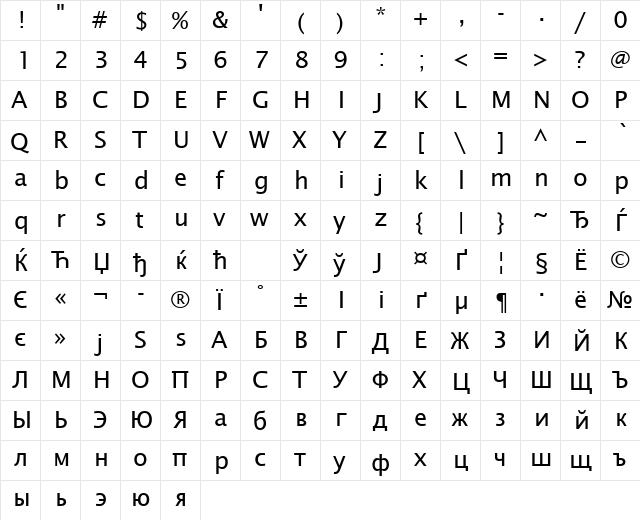
LucidaSanTCY Regular
Design Context for LucidaSanTCY Typeface
LucidaSanTCY offers clean, dependable letterforms without strong stylistic allegiance, making it a practical choice for designers who need flexibility.
Pro Tip: Use LucidaSanTCY in both headline and body roles to test its range before committing to a single application.